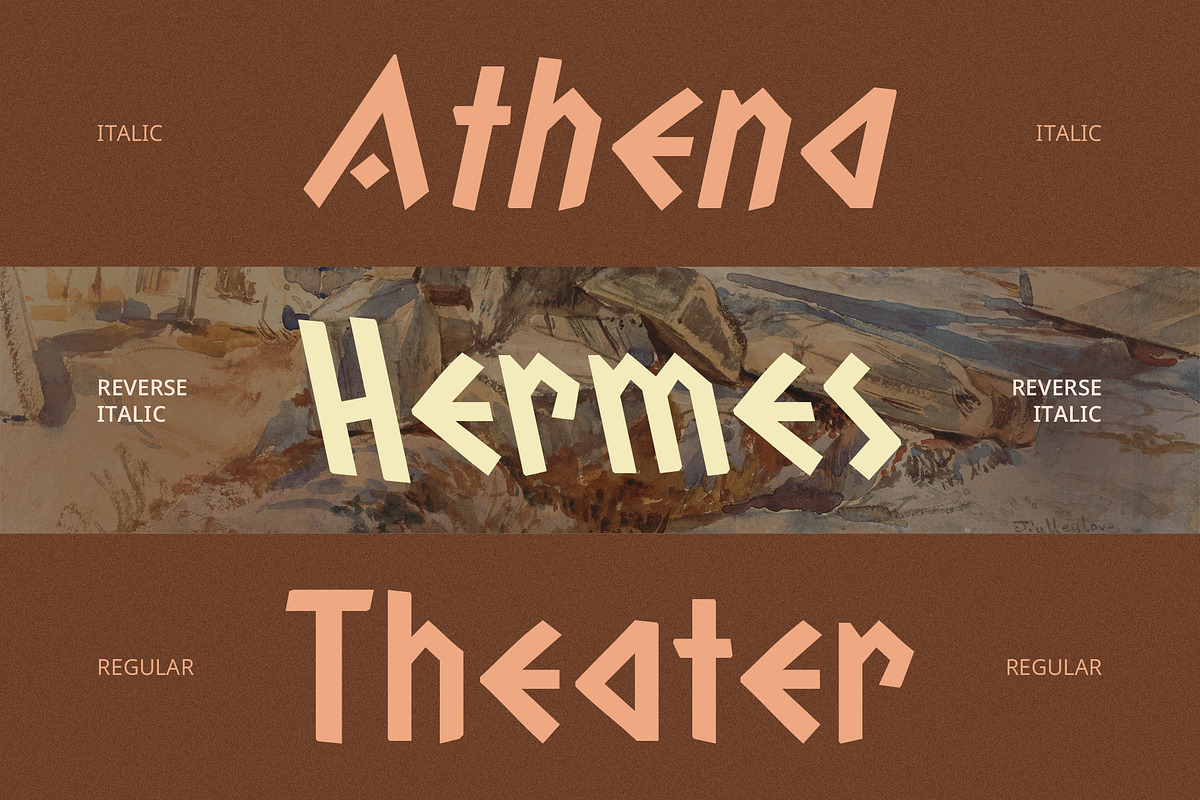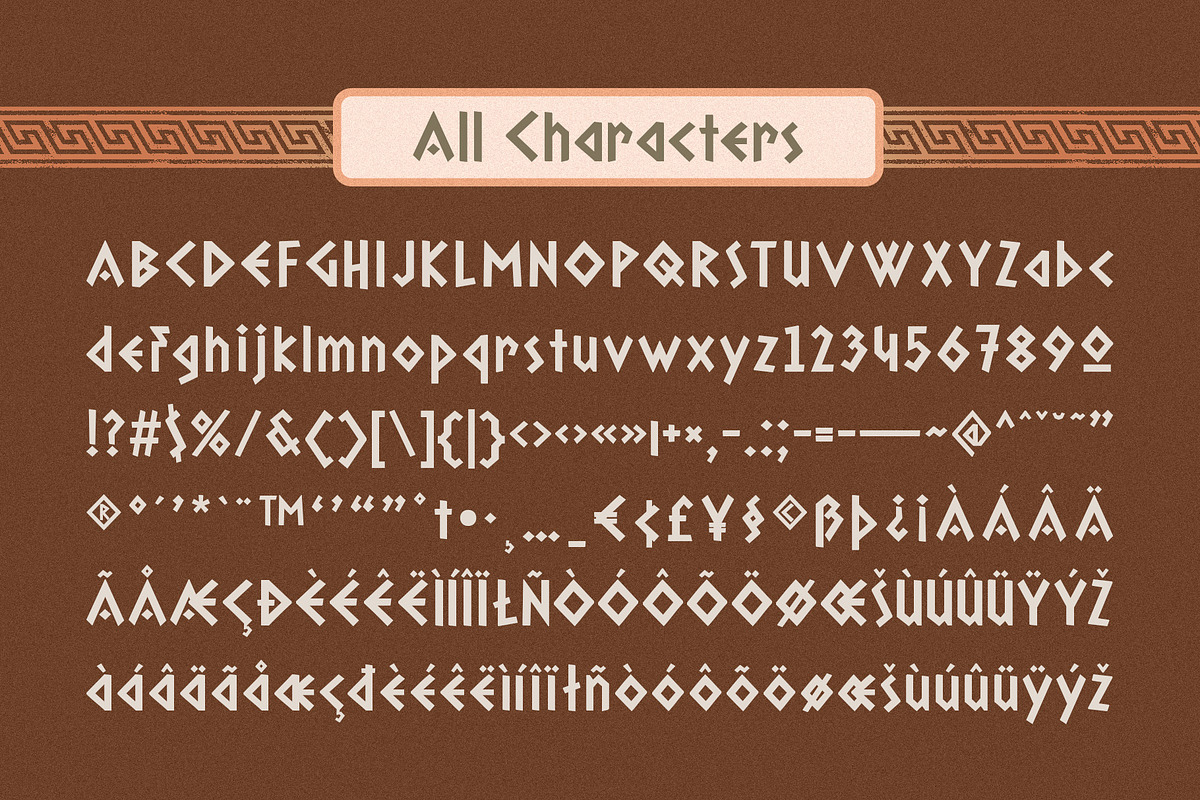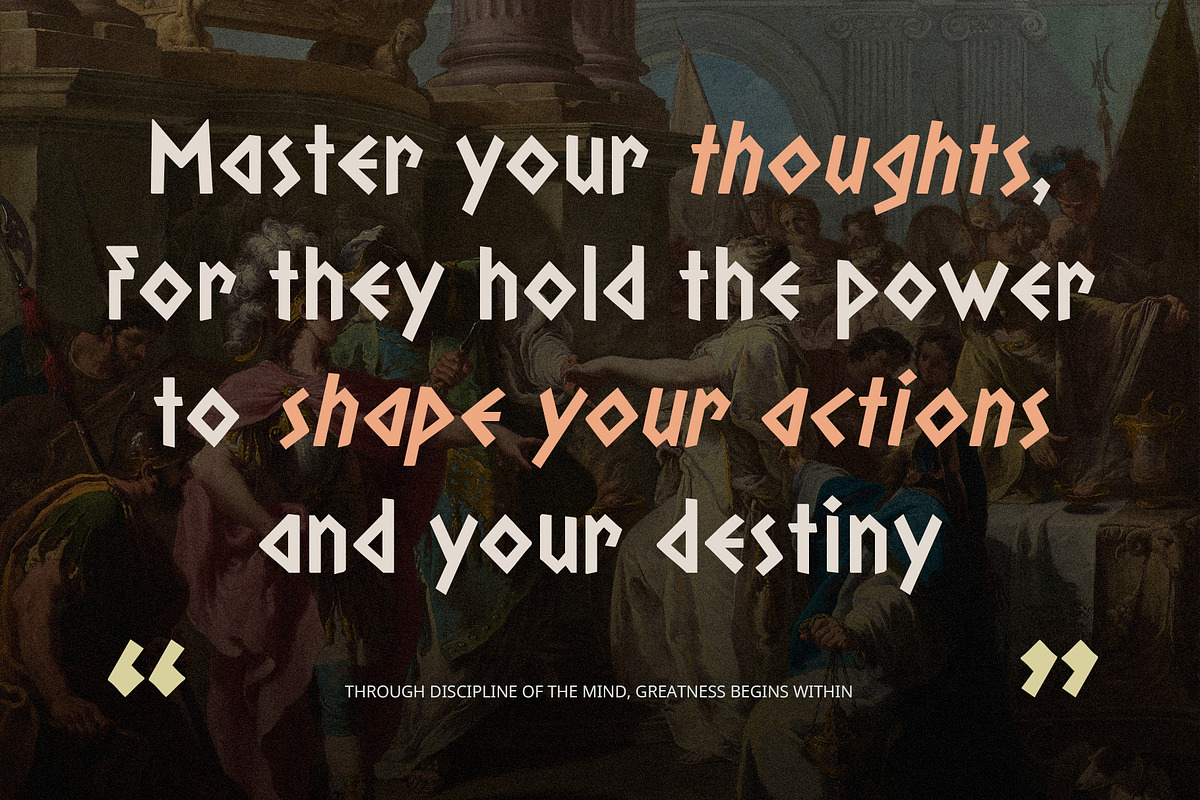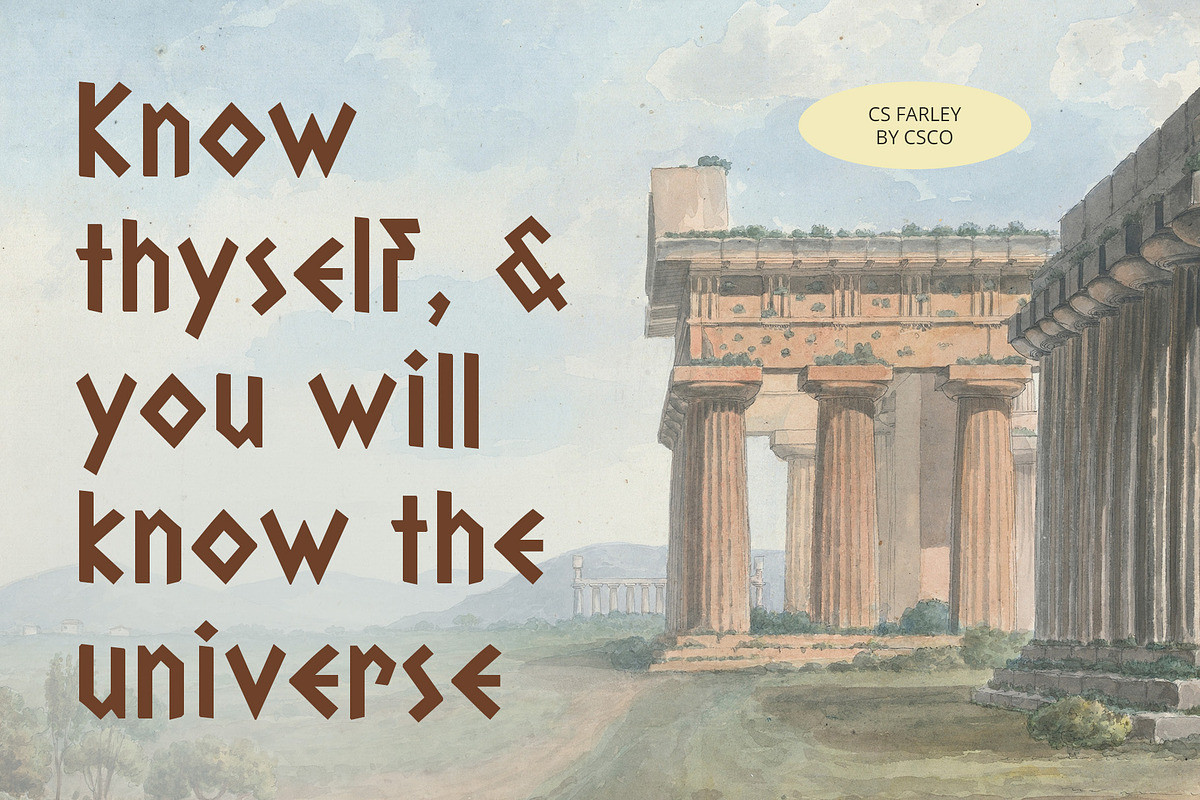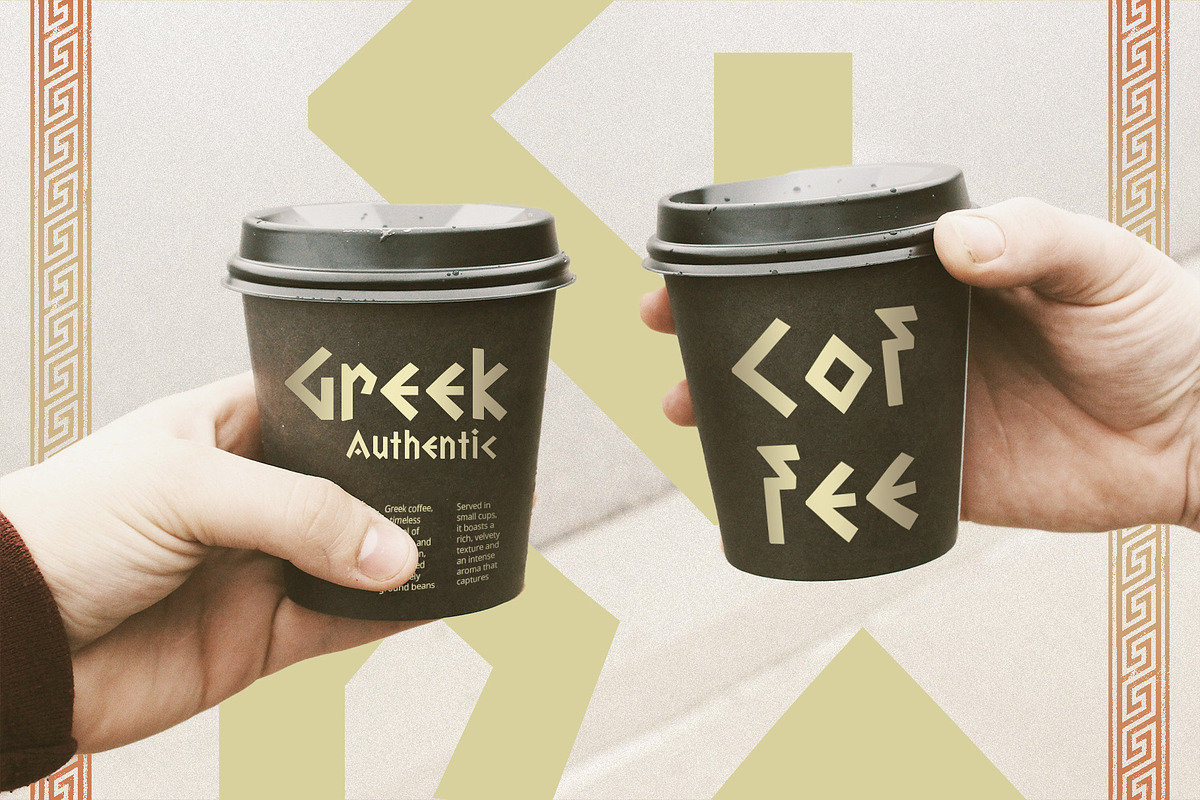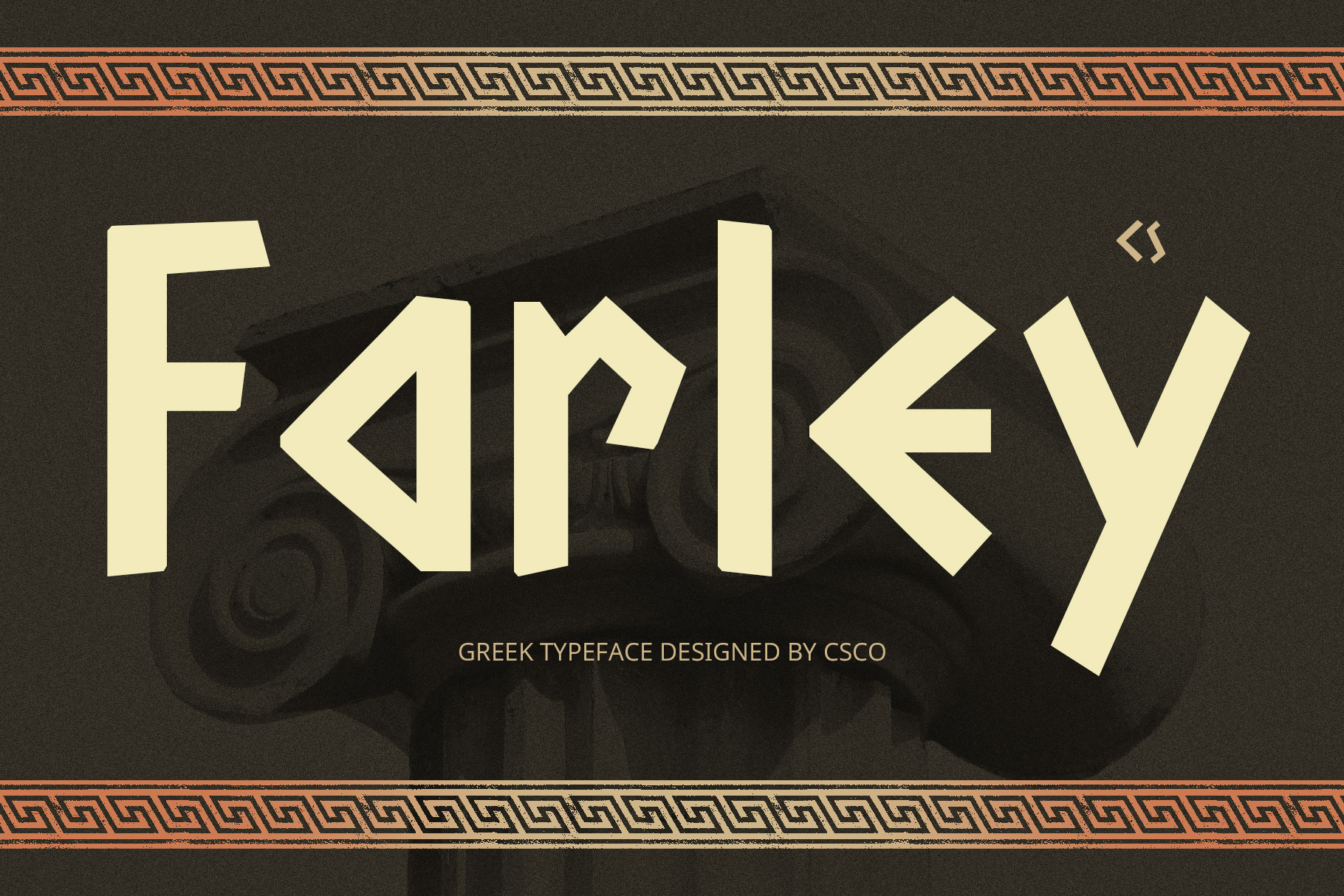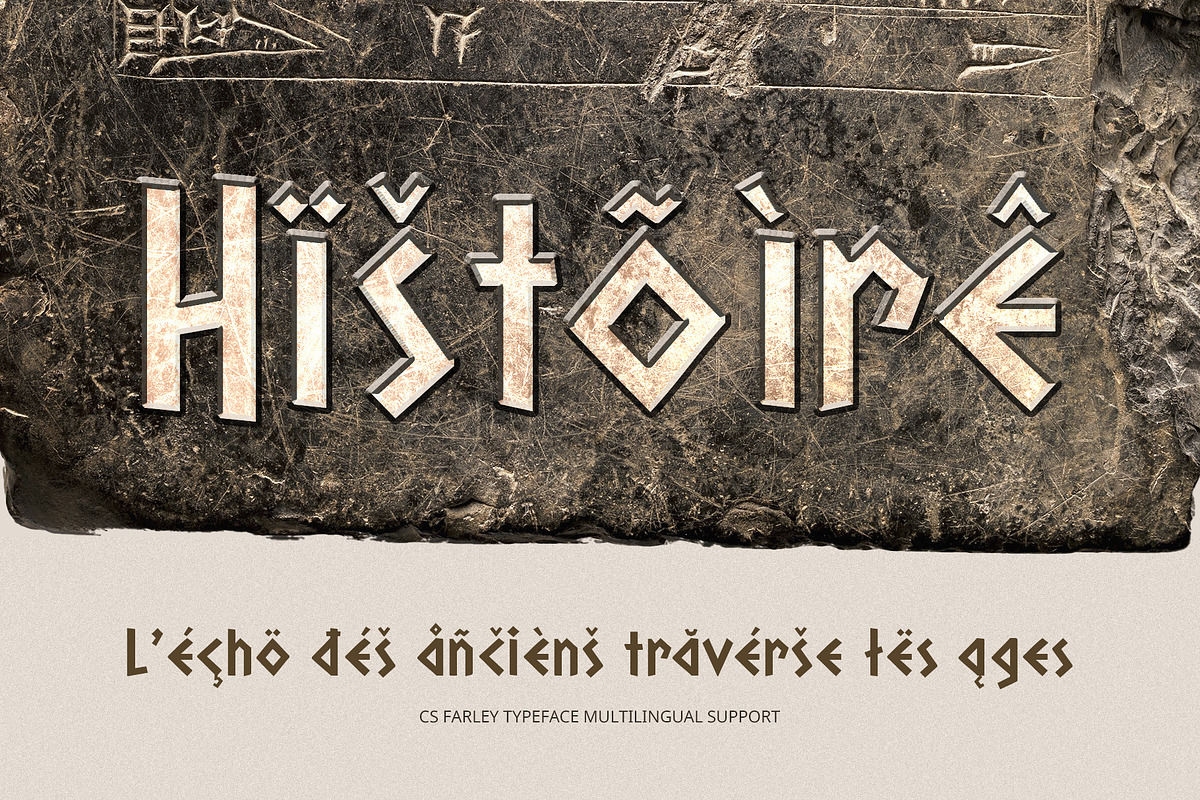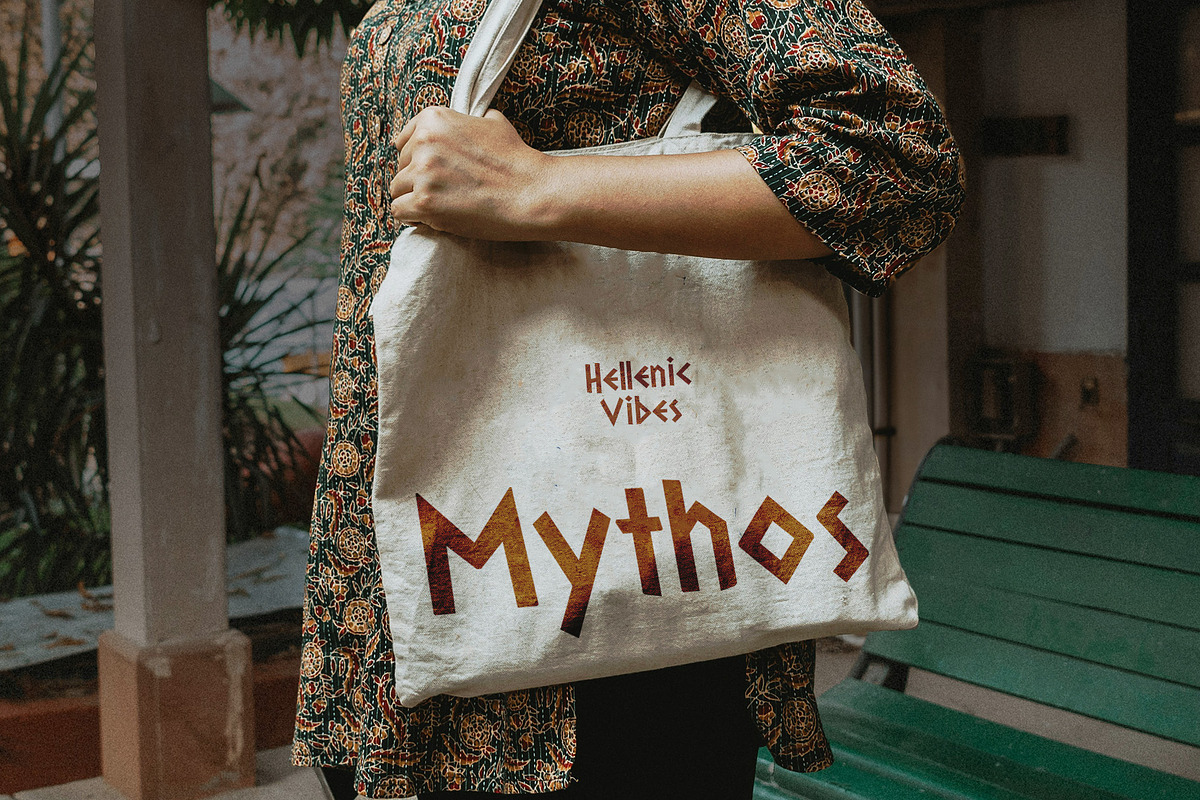
CS Farley – Ancient Greek Font
CS Farley – Ancient Greek Font: Timeless Elegance of Classical Antiquity
Ancient Greek Display Font CS Farley is a display font designed to evoke the grandeur and wisdom of ancient Greece. Its distinctive letterforms, inspired by Greek architecture and inscriptions, bring a sense of historical depth and timeless elegance to any design project.
Bold, Angular Shapes and Serifs With bold, angular shapes and strong serifs, CS Farley captures the essence of ancient Greek typography. The sharp edges and geometric precision of the letters reflect the architectural precision and intellectual significance of Greek inscriptions, offering a powerful visual representation of classical history.
Perfect for Heritage and Historical Themes The ancient Greek influence makes CS Farley an ideal choice for designs related to heritage, mythology, and historical themes. Whether you’re working on academic materials, cultural heritage projects, or designs that explore classical art and philosophy, this font adds an authentic touch of ancient wisdom and prestige.
Scholarly, Educational, and Cultural Designs CS Farley’s unique design is perfect for projects that require an old-world, scholarly atmosphere. Its historic aesthetic makes it suitable for academic papers, museum exhibits, educational resources, and any creative endeavor that aims to showcase intellectual tradition, philosophy, and cultural heritage.